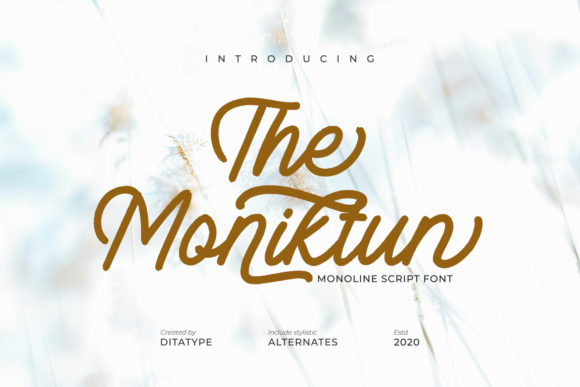
Journey into the realm of elegance and sophistication with The Moniktun Font, a captivating script font designed to elevate your creative endeavors to new heights. Its meticulously crafted curves and graceful strokes exude an air of timeless beauty, making it the perfect choice for branding, logo design, and any project seeking a touch of distinction.
Indulge in the versatility of The Moniktun Font, a typeface that seamlessly adapts to a myriad of design styles. Whether you're crafting elegant invitations, eye-catching social media posts, or stunning website headers, this font delivers exceptional results. Its inherent charm adds a touch of refinement to any project, leaving a lasting impression on your audience.
Embrace the ease and convenience of The Moniktun Font, a PUA-encoded masterpiece that grants you effortless access to its full repertoire of glyphs and swashes. Unleash your creativity without boundaries, knowing that this font has been meticulously designed to cater to your every need.
The Moniktun Font is more than just a collection of characters; it's an artistic expression that breathes life into your designs. Its Latin-inspired design pays homage to the rich history of script fonts, while its modern interpretation ensures it remains relevant and captivating in today's digital landscape.